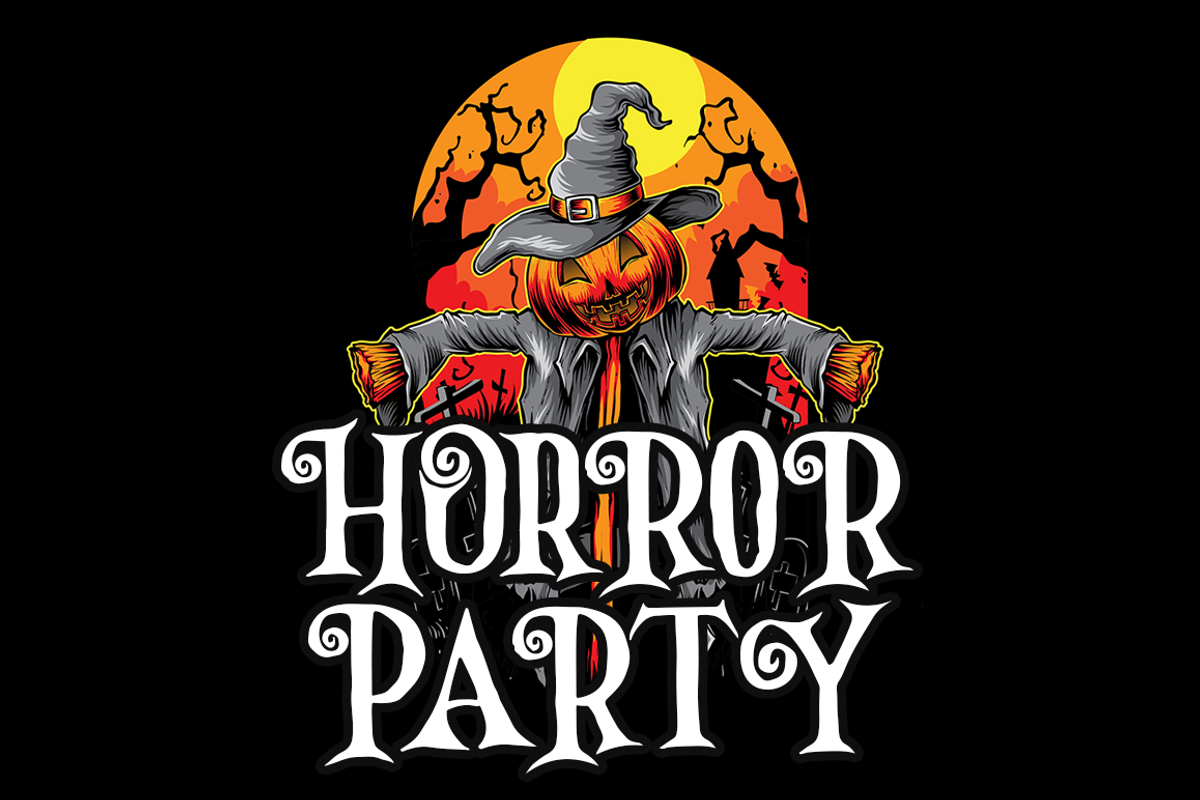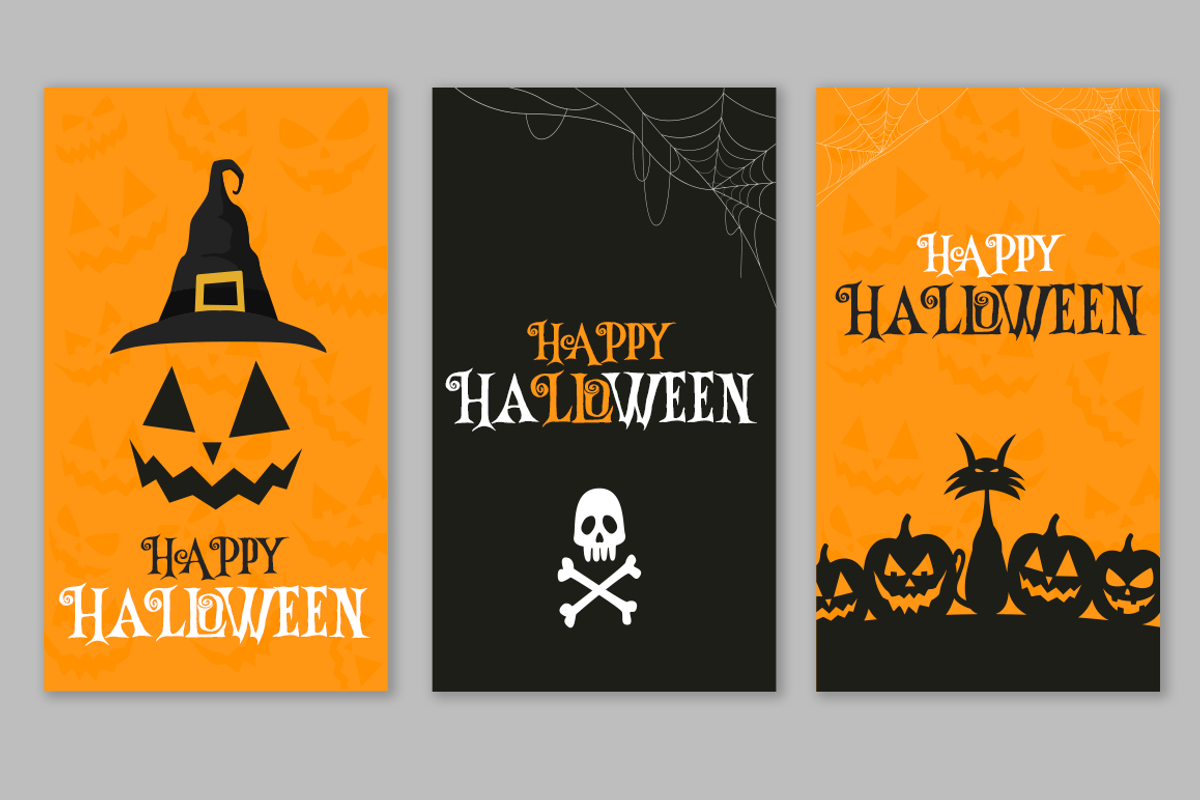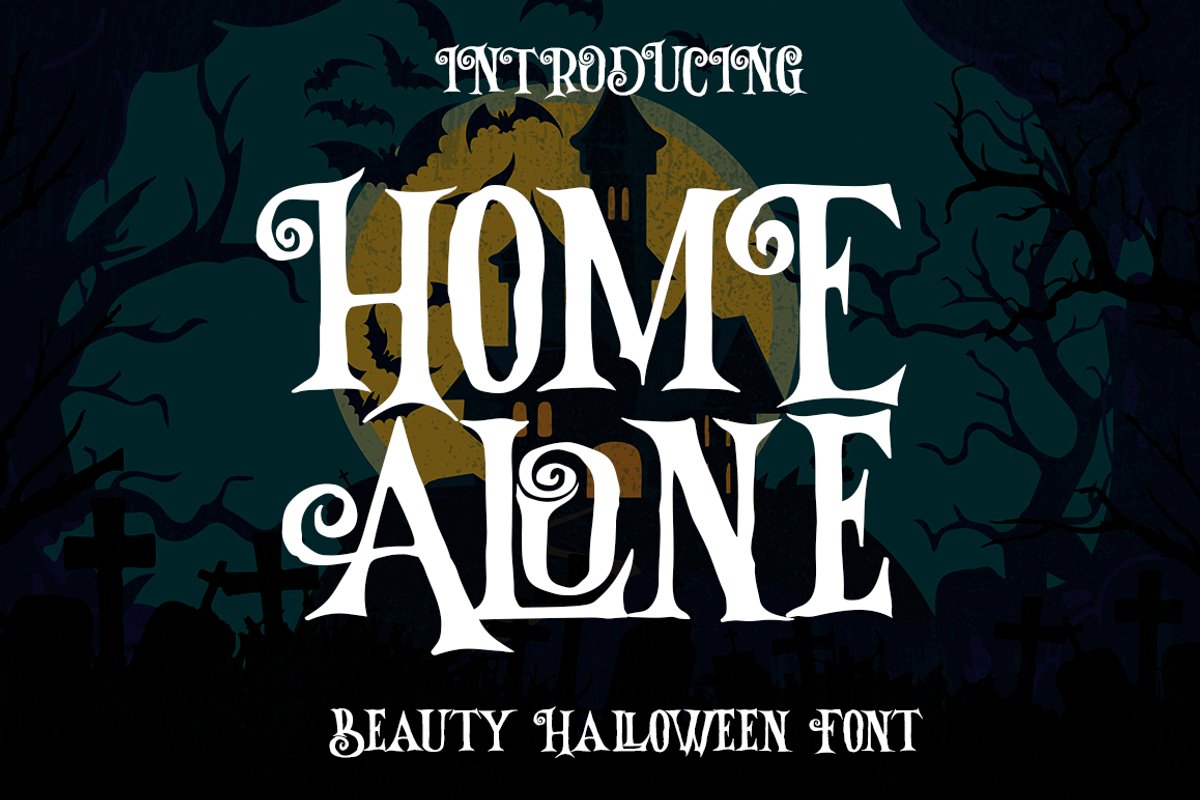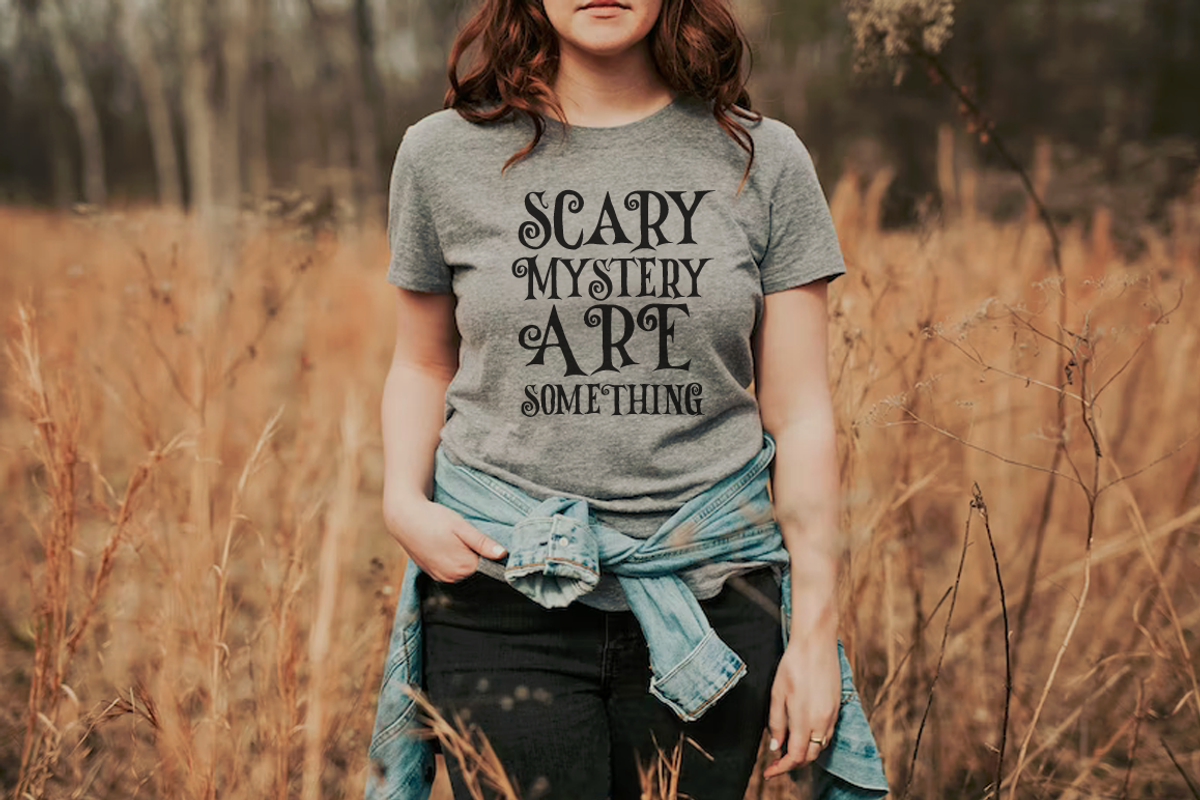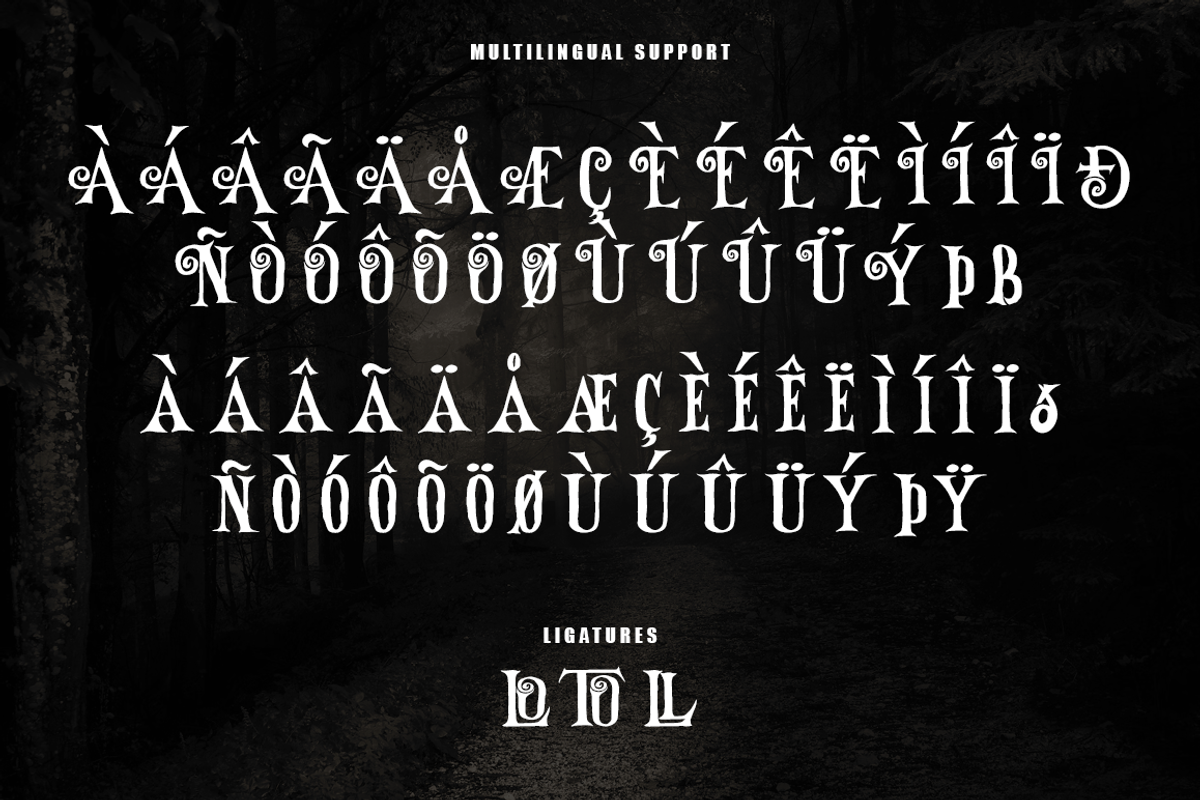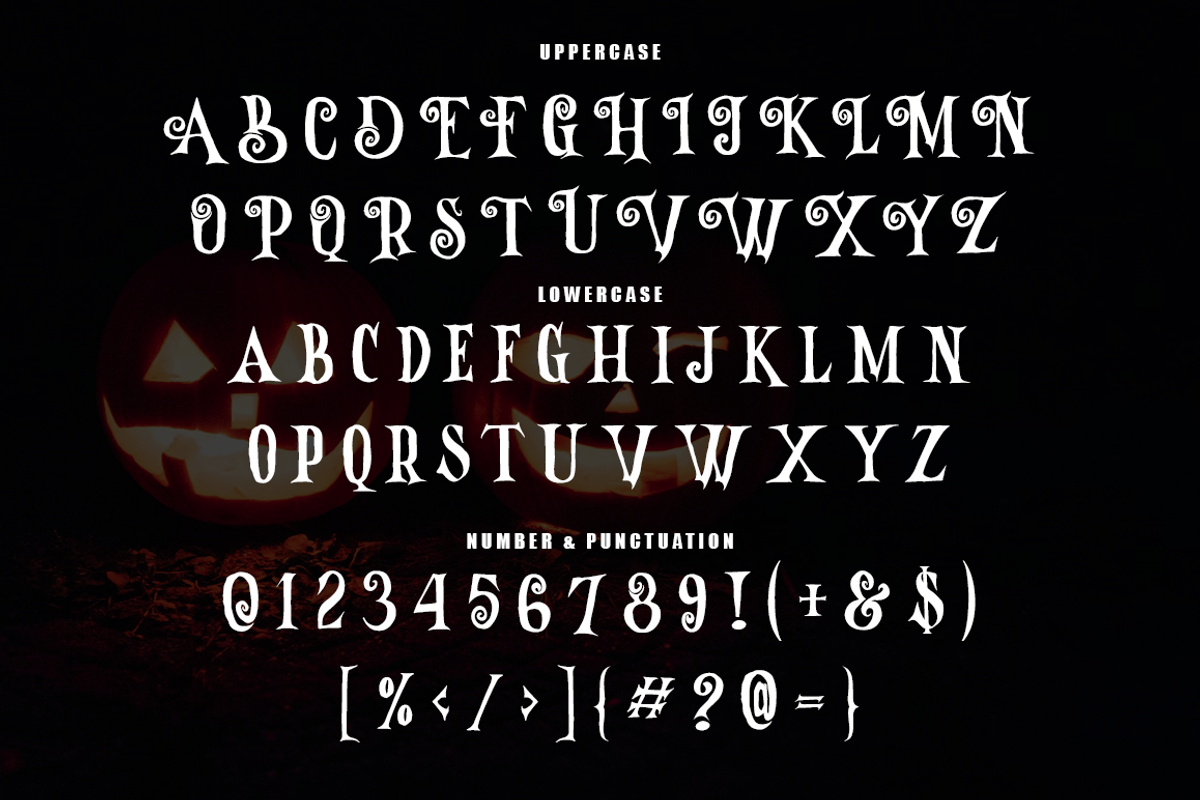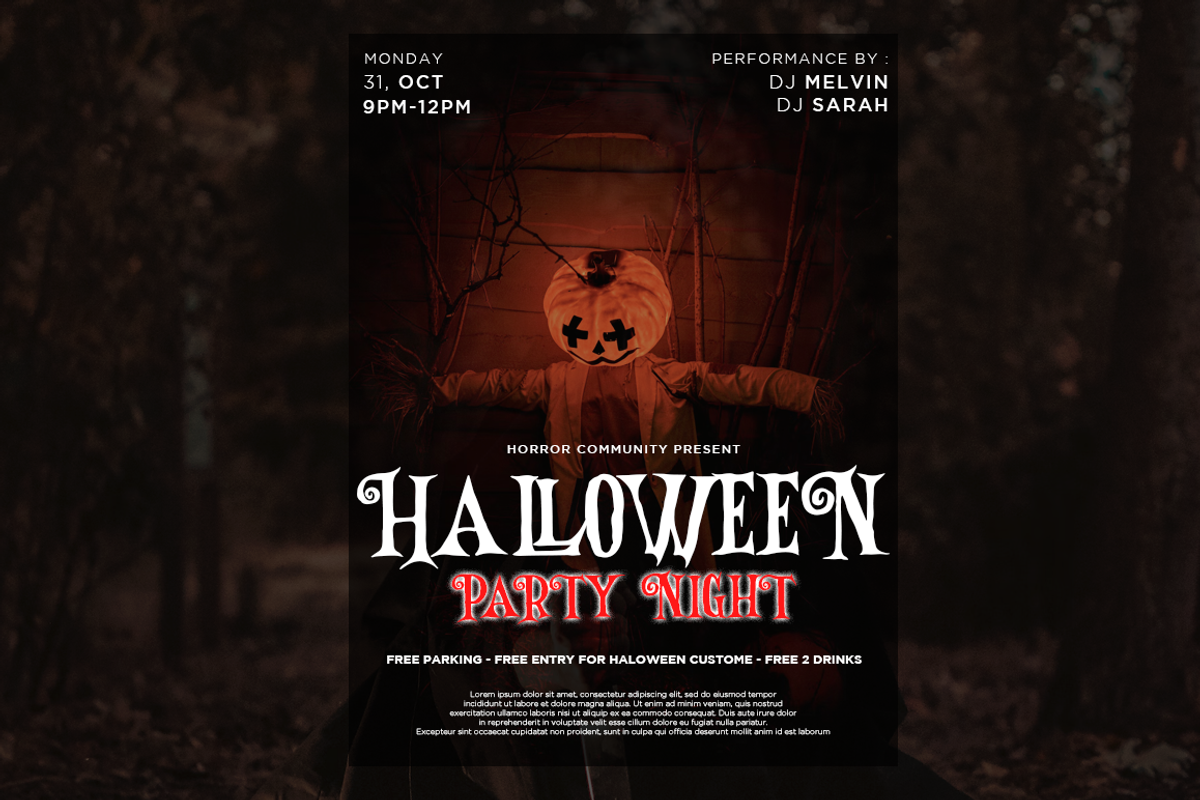
Home Alone is the horror display typeface with high contrast all caps style looks and feel nice balanced.
Honestly it works perfectly for headlines, logos, posters, packaging, T-shirts and much more, related Halloween.
- Character set A-Z in All Caps Style
- Accented Characters
- Multiple Languages Supported